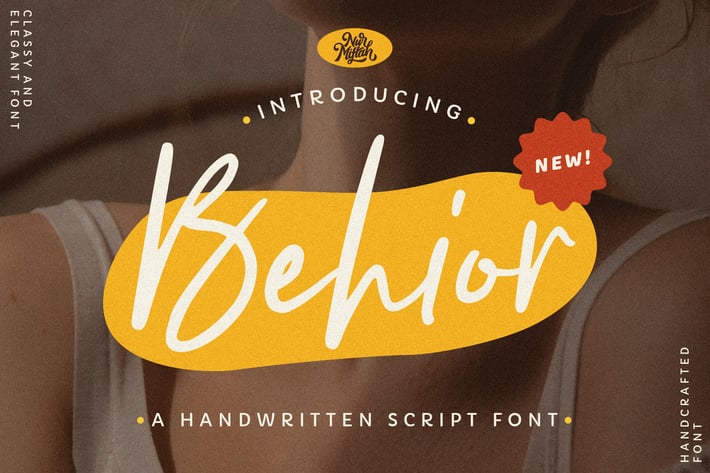
Behior - Handwritten Font
Behior Font can be used for various media like special events,
invitation, packaging, poster, wedding, movie titles, book titles,
social media, logos, branding, and others.
+ Stylistic Set
+ Ligature
+ Alternates